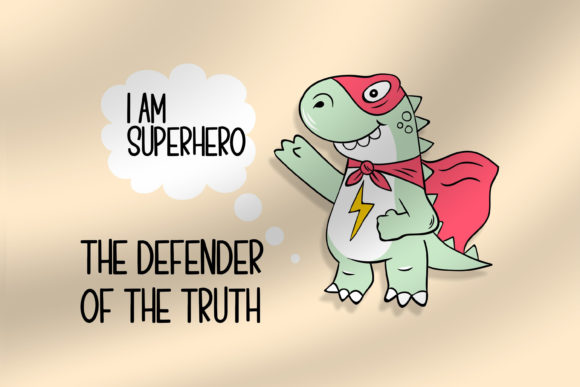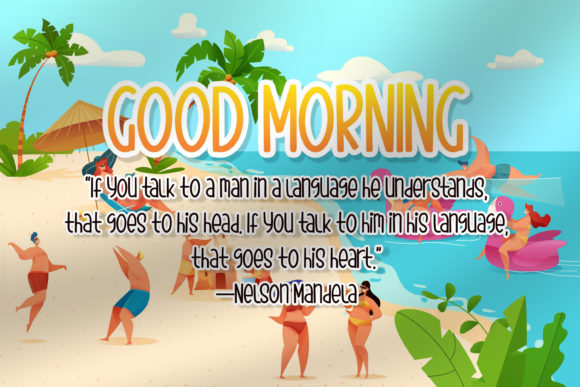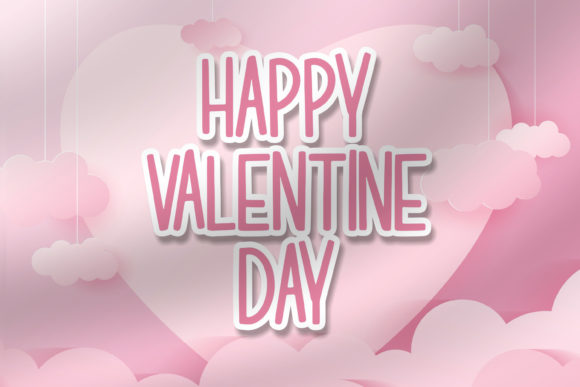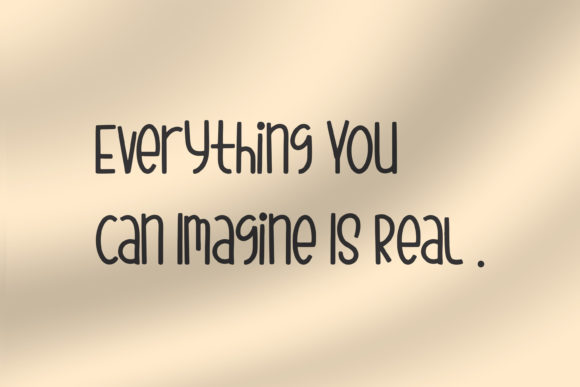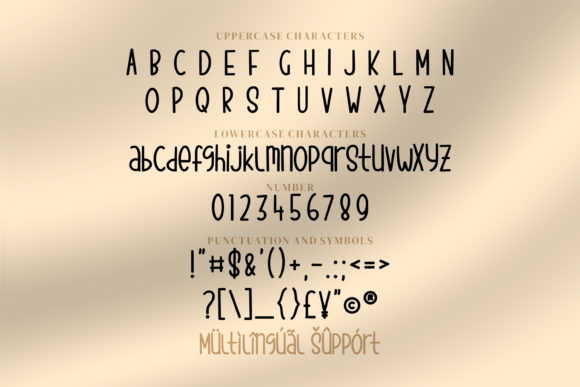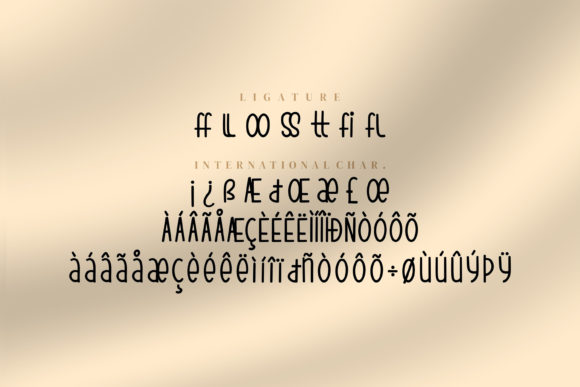
Introduction to Flying Foxes Font
Flying Foxes is a cute and quirky display font.
It has a modern yet whimsical style and it will undoubtedly immerse your designs into a magical world .
Key Features of Flying Foxes Font